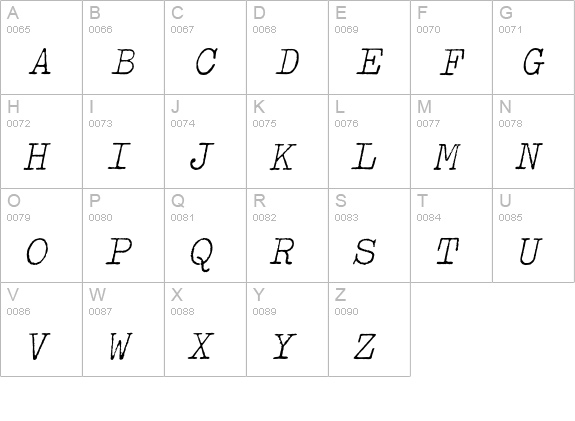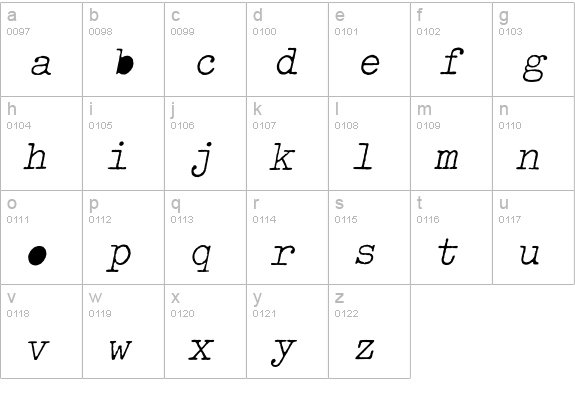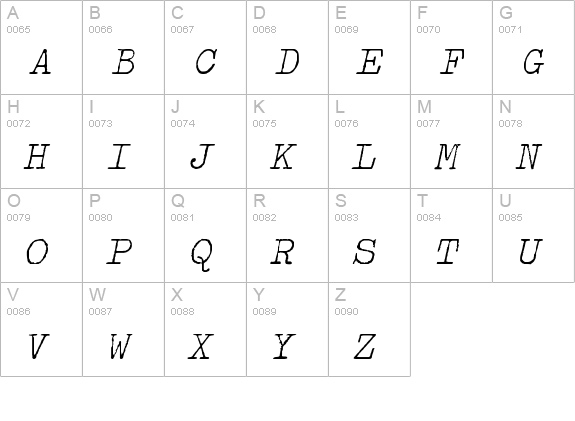
OldTypewriterEF-LightObl Font Details
OldTypewriterEF-LightObl font is a charming and nostalgic typeface that beautifully captures the essence of vintage typewriters. Its slender and elegant letterforms evoke a sense of history and authenticity, making it the perfect choice for projects that require a touch of old-world charm. This font is ideal for creating stylish and unique designs with a retro flair. Whether you're working on invitations, posters, or branding materials, OldTypewriterEF-LightObl will add a distinctive and timeless touch to your work. Best of all, this font is completely free to download at FontsMarket.com, making it accessible to everyone looking to add a touch of vintage elegance to their designs. Don't miss out on the opportunity to enhance your projects with the classic appeal of OldTypewriterEF-LightObl font!